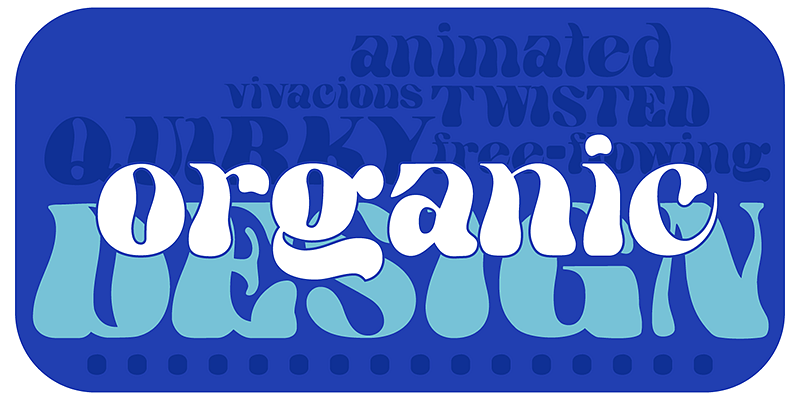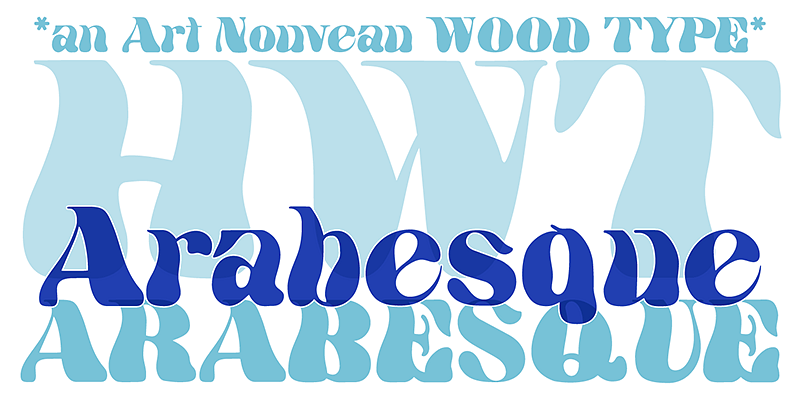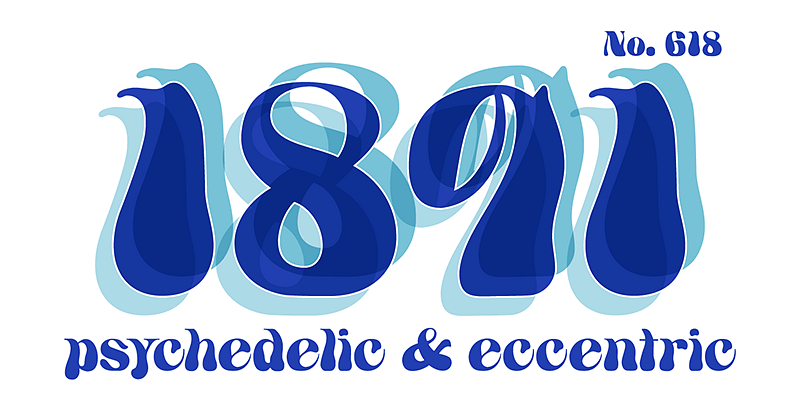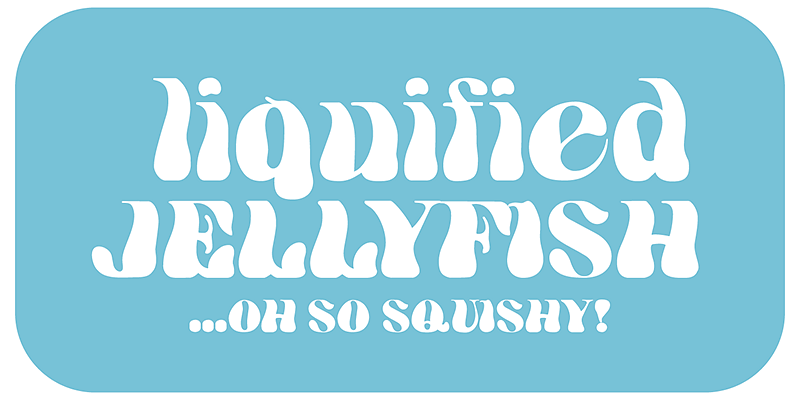
HWT Arabesque is an Art Nouveau wood type which evokes the excesses of Victorian design and the equally quirky 1960s Psychedelic era revival of the Victorian type styles.